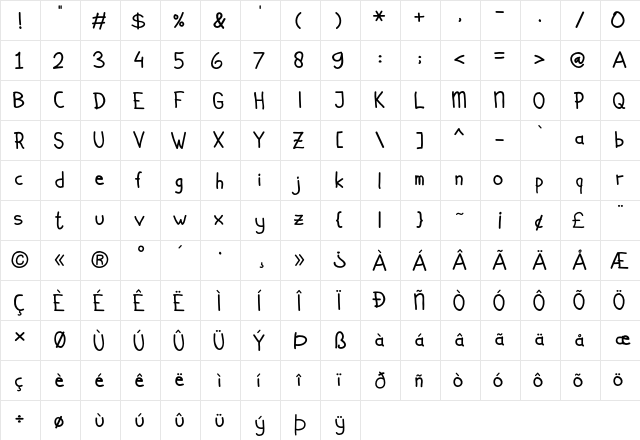
Simplicito Regular
Regular · jozgandoz jozgandoz ·
Foundry jozgandoz
Designerjozgandoz
Design Context for Simplicito Typeface
Simplicito offers clean, dependable letterforms without strong stylistic allegiance, making it a practical choice for designers who need flexibility.